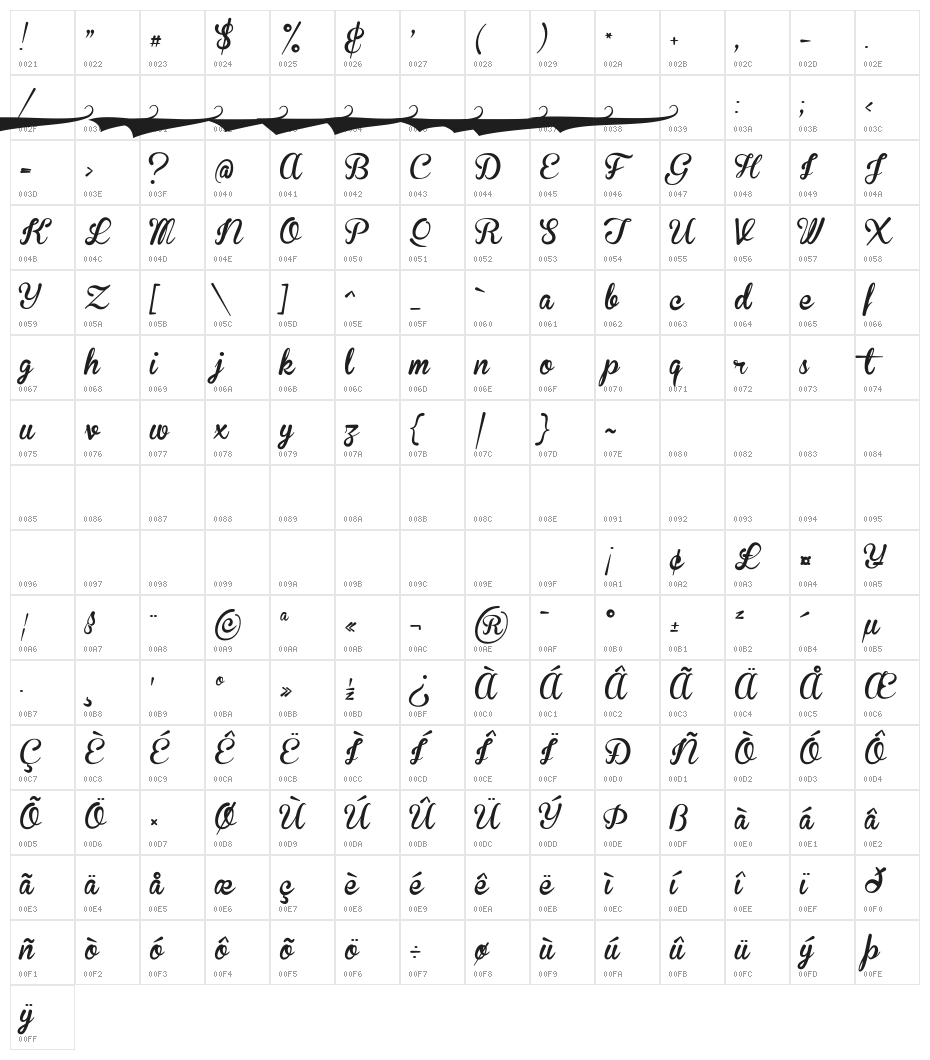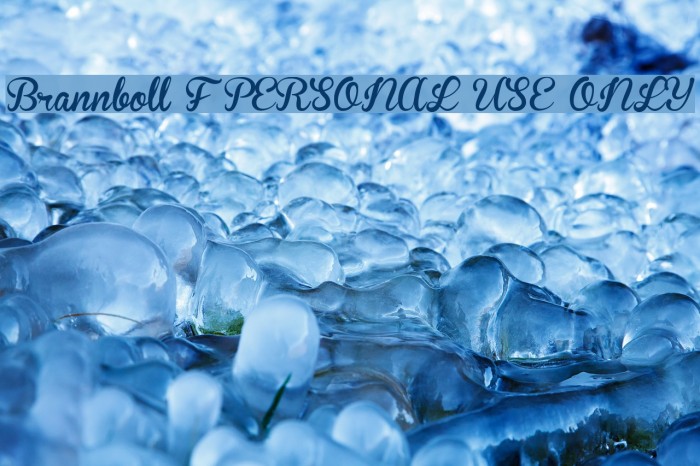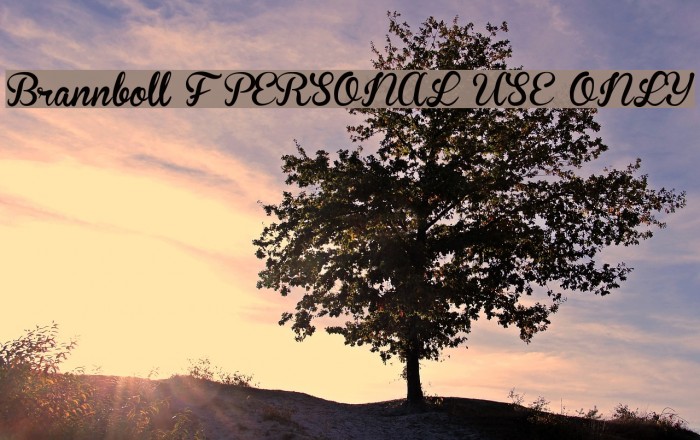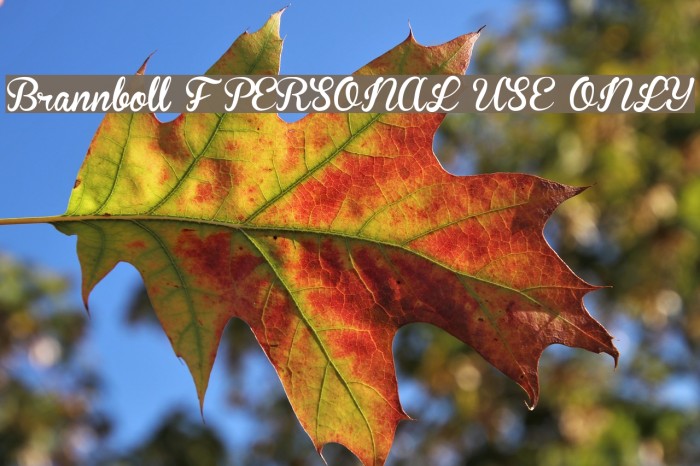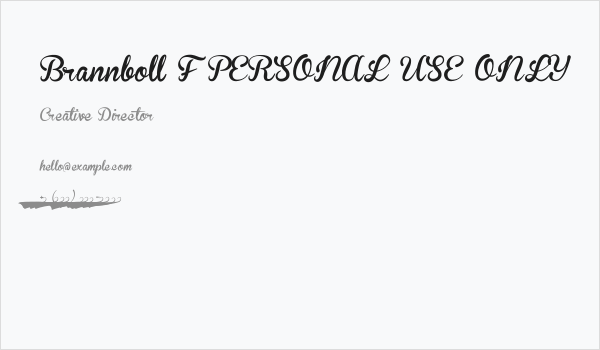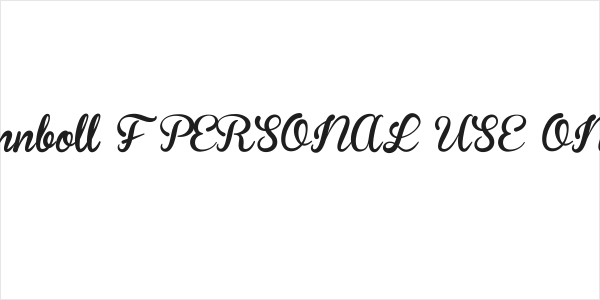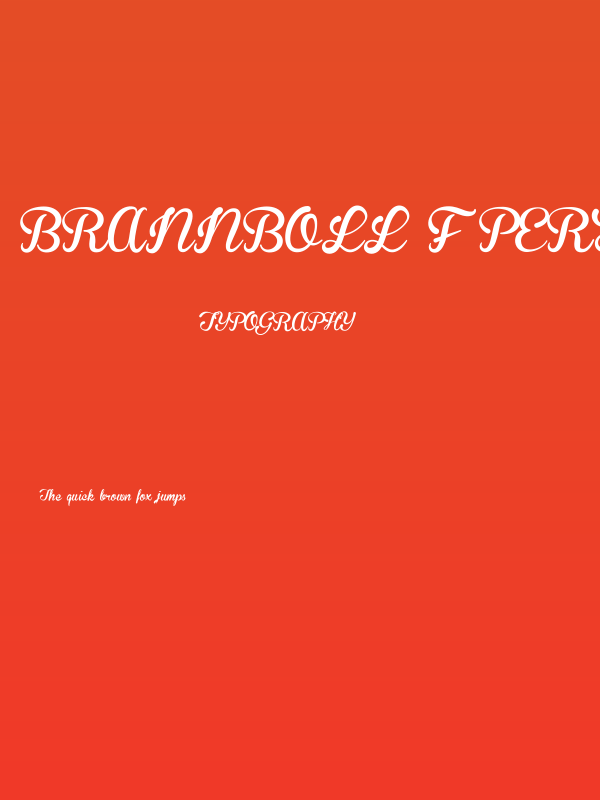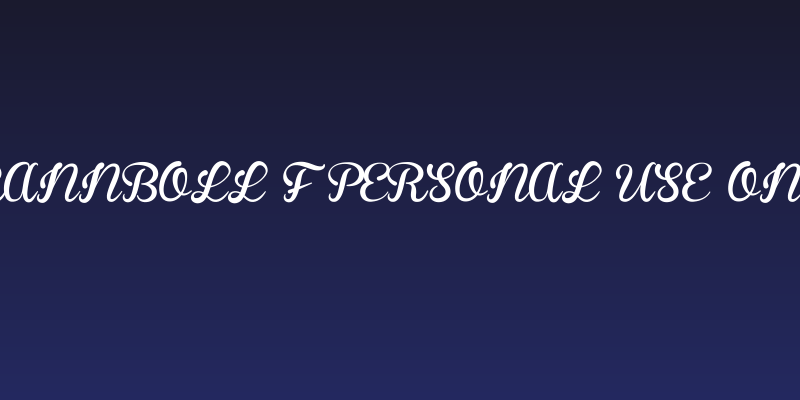
Brannboll F PERSONAL USE ONLY Font
Brannboll F PERSONAL USE ONLY Description
This font exudes a playful and dynamic script style, characterized by its flowing, cursive letterforms. The uppercase letters are elegantly connected, creating a sense of movement and fluidity. The lowercase letters maintain this cursive style, with smooth transitions and rounded edges. The font includes a variety of special characters and punctuation, each designed to complement the overall aesthetic. Its bold strokes and artistic flair make it ideal for creative projects that require a touch of elegance and personality.